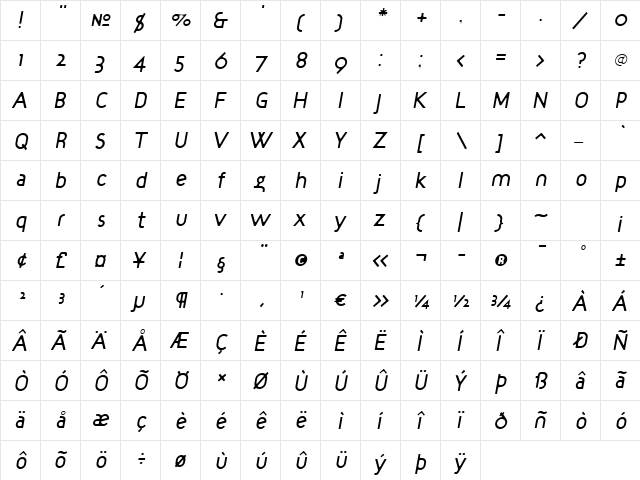
TargetLightItalic Regular
Design Context for TargetLightItalic Typeface
TargetLightItalic is a composed and adaptable typeface that performs quietly and consistently across a wide range of design contexts. The slanted form adds forward momentum and visual energy. Its slender proportions lend an understated elegance to any composition.
Pro Tip: Try TargetLightItalic for annotation and caption copy alongside an upright companion — the contrast in angle creates a dynamic but ordered typographic system.